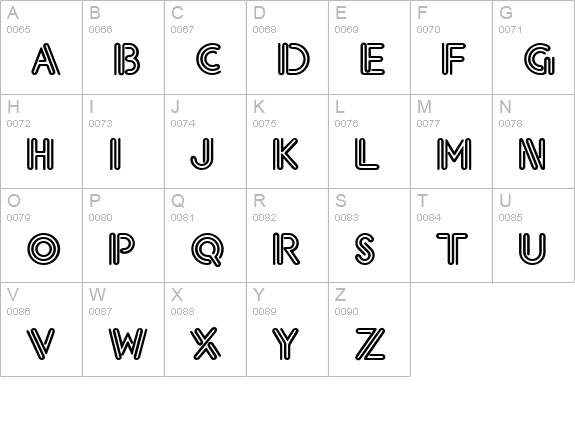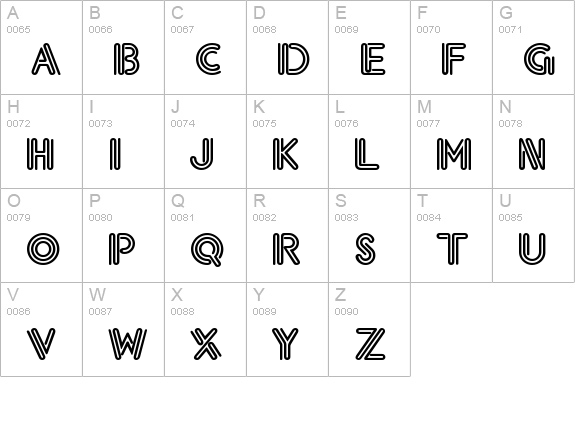
Eklektic Font Details
Eklektic font is a unique and modern typeface that seamlessly blends different styles to create a truly eclectic design. Its striking combination of sharp edges and flowing curves gives it a dynamic and versatile look that is perfect for a wide range of design projects. Whether you're working on a poster, logo, website, or any other creative endeavor, Eklektic font will make a bold statement and elevate your design to the next level. The best part is, Eklektic font is completely free to download at FontsMarket.com. This means you can add this eye-catching font to your collection without any cost, allowing you to unleash your creativity without limitations. Don't miss out on the opportunity to enhance your designs with the unique charm of Eklektic font - download it today and start creating stunning visuals that stand out from the crowd.